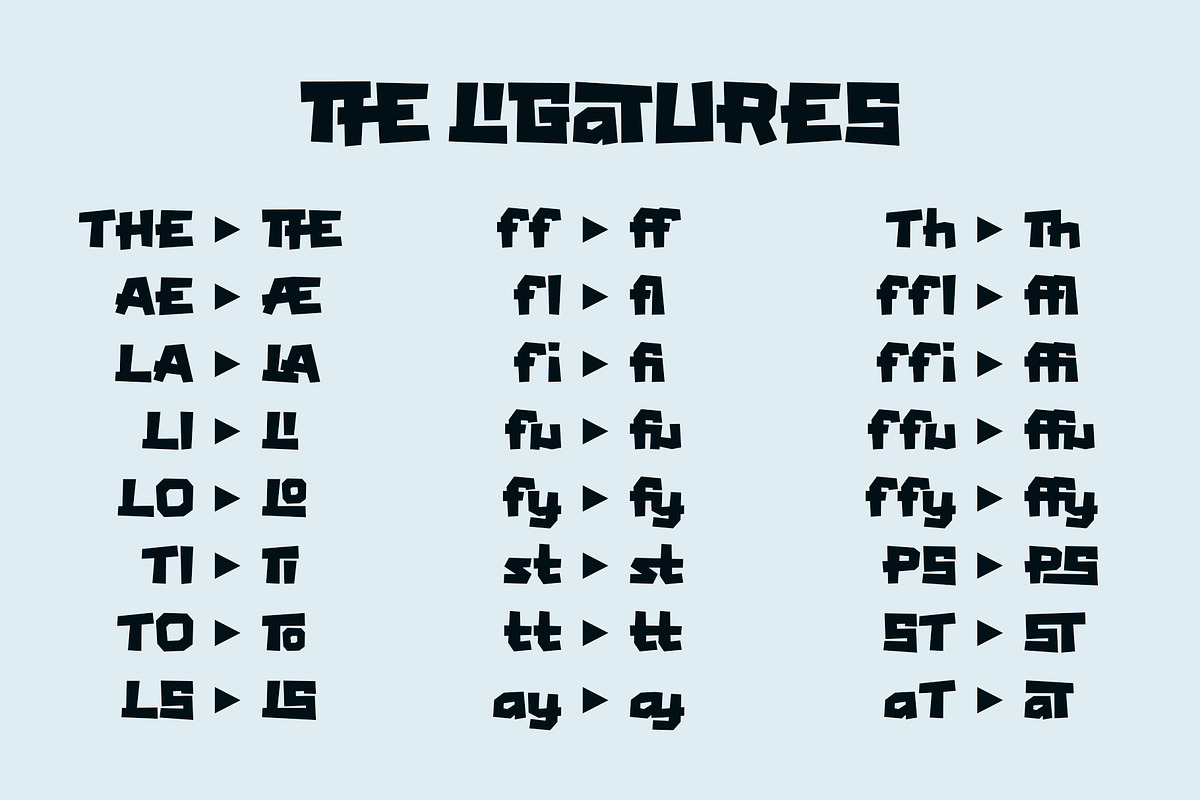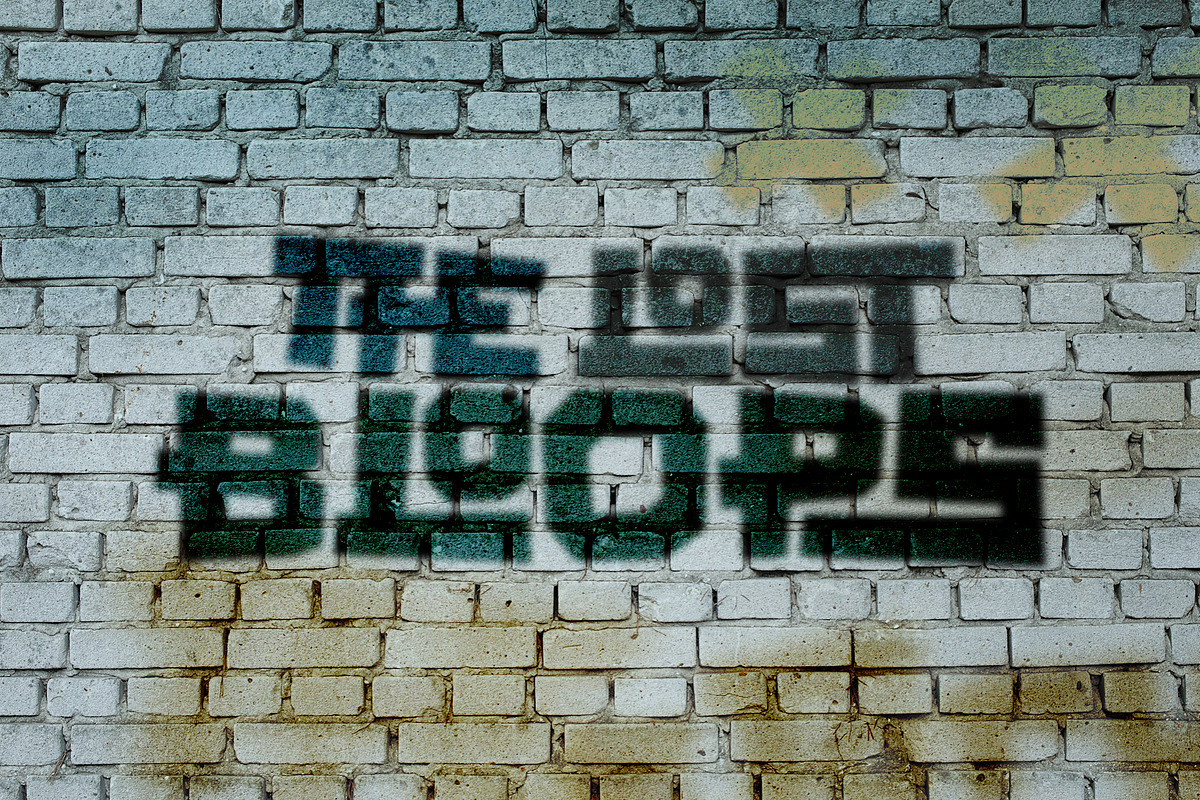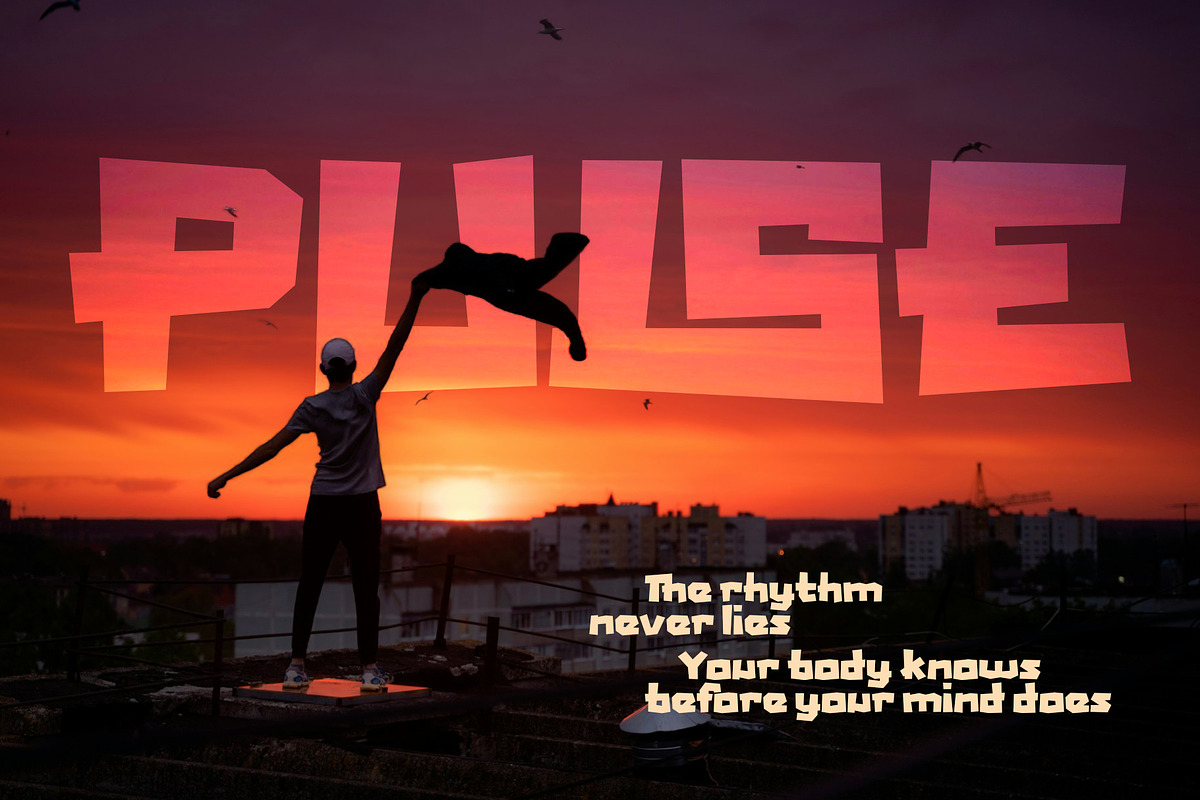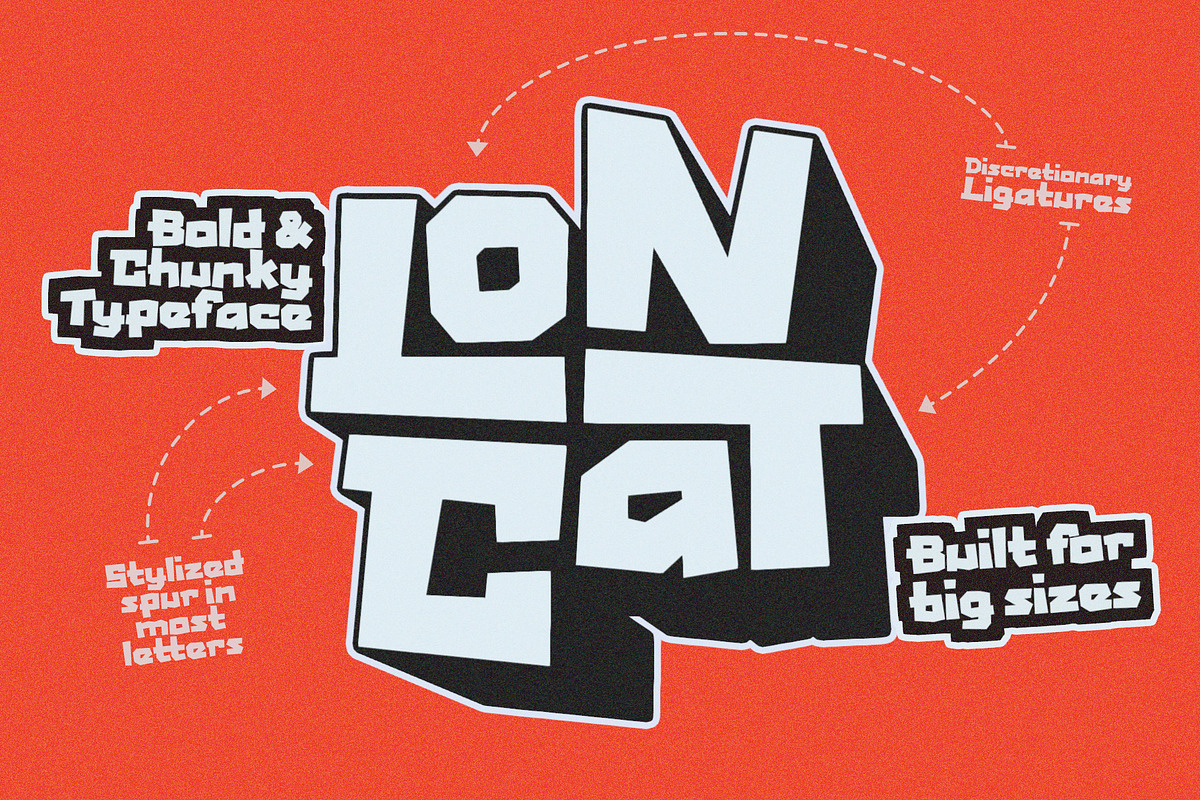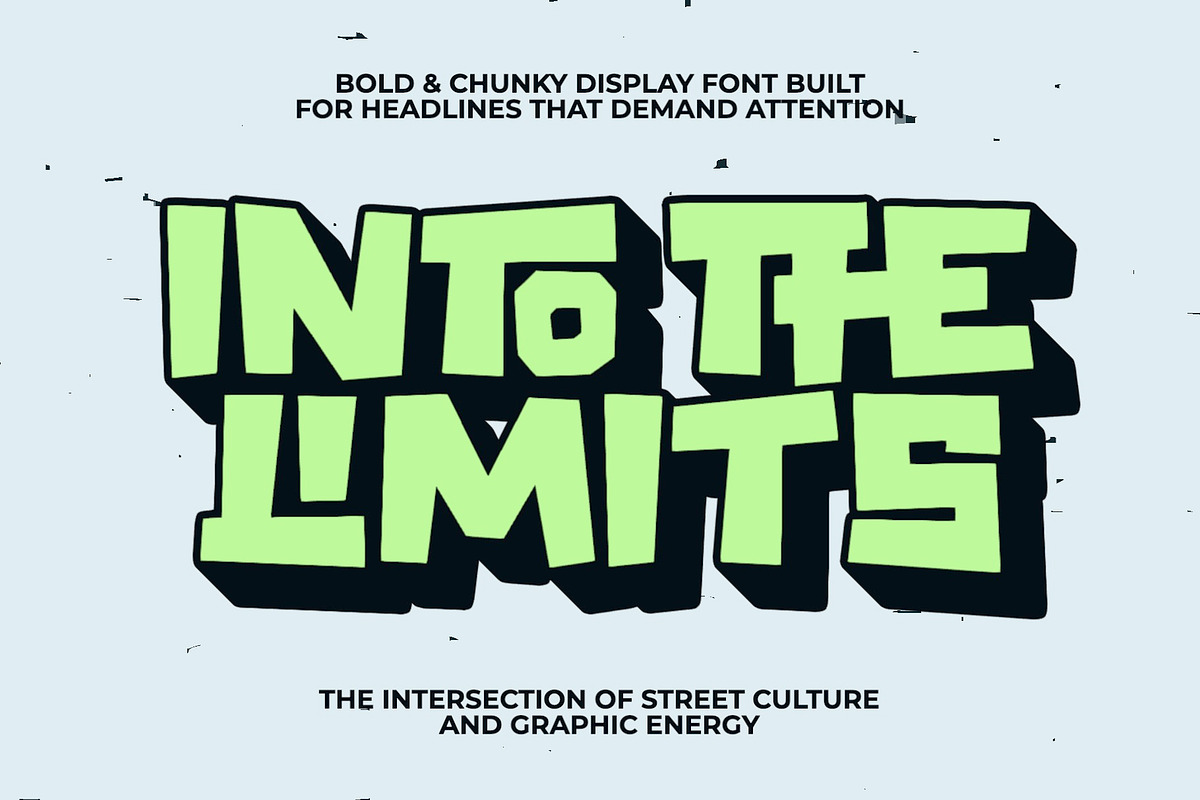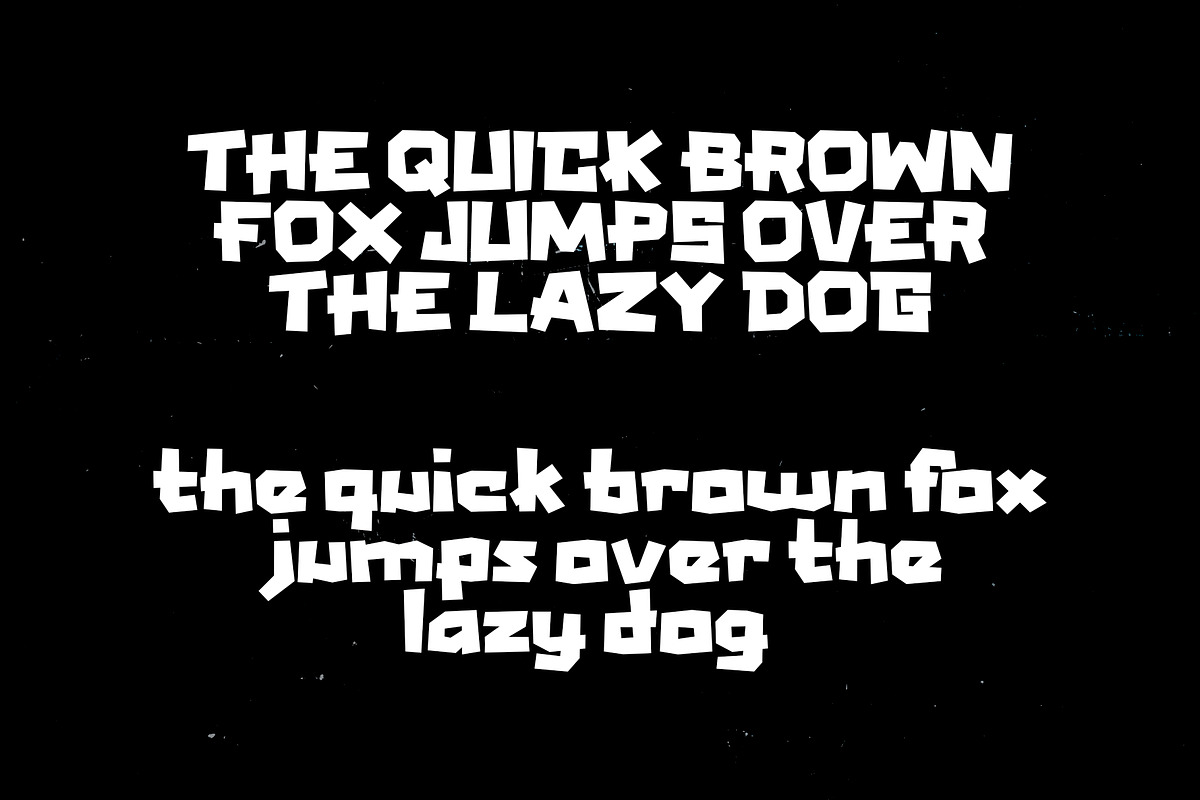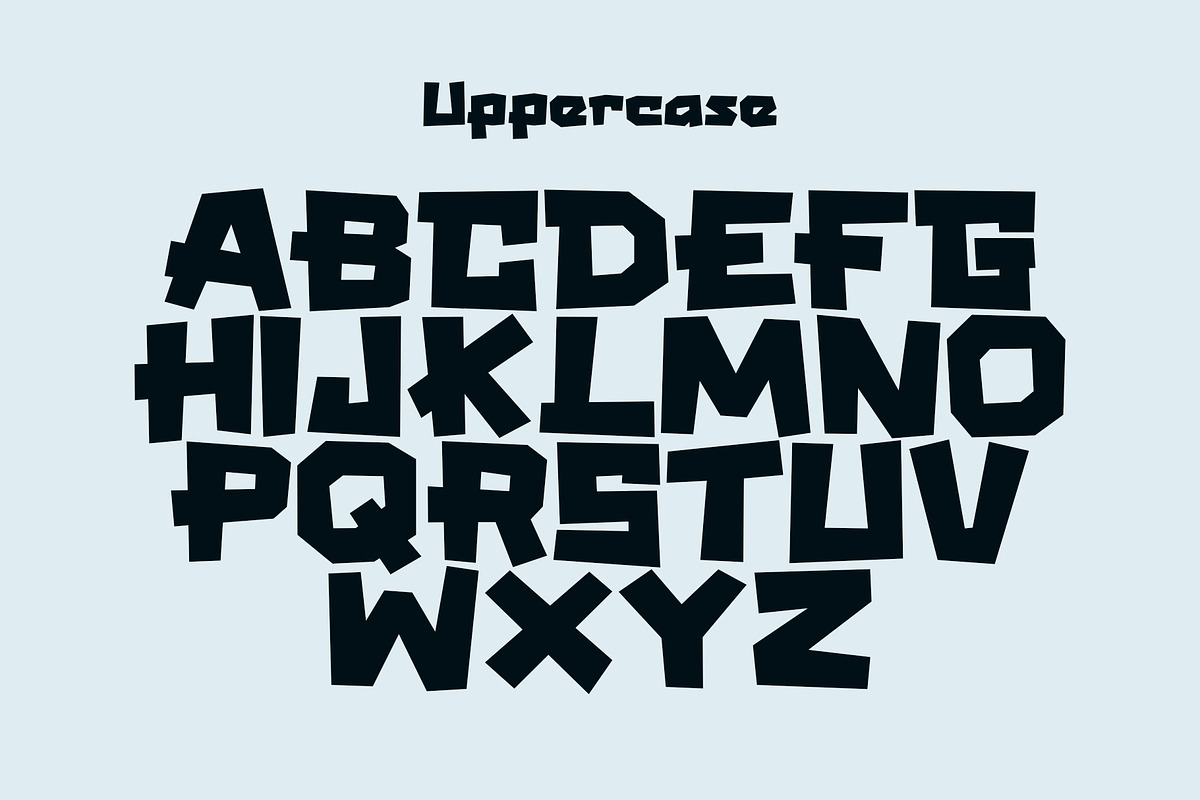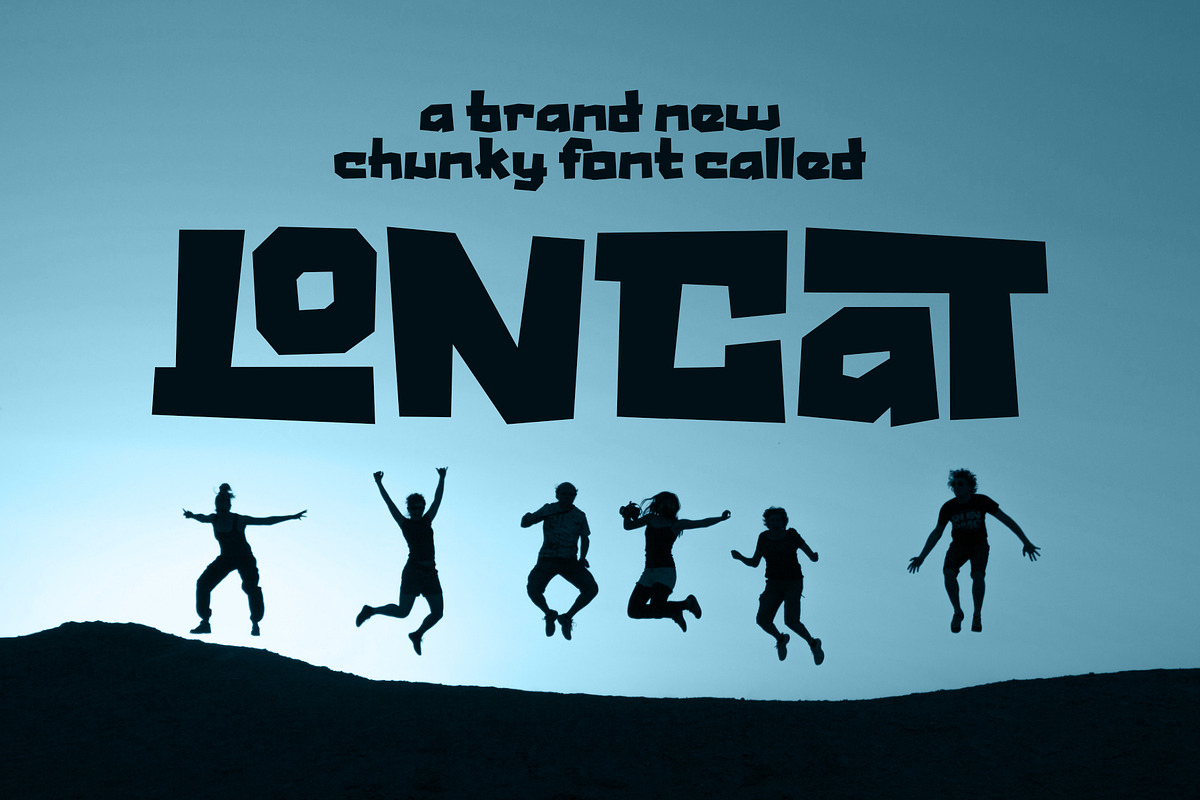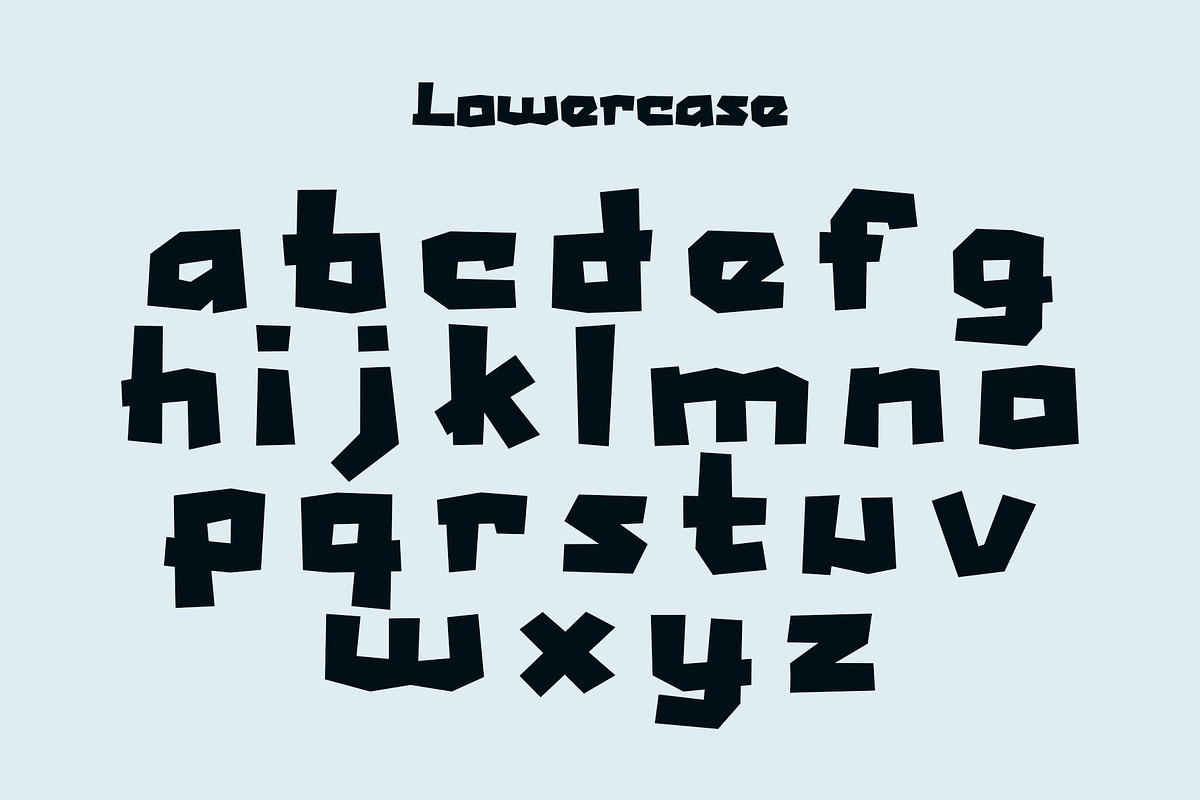
Loncat - Bold & Chunky Typeface
Loncat is a heavy, chunky display font that means business. Built with thick strokes, stylized spurs on most letters, and sharp angular details, it brings the visual weight of street lettering into a clean, fully functional typeface.
Activate discretionary ligatures (dlig) to unlock unique letter combinations that give your words extra character. Whether you're designing a poster, a logo, or a streetwear drop — Loncat shows up loud.
Great for: posters · urban branding · apparel · game titles · album art · merchandise · headlines